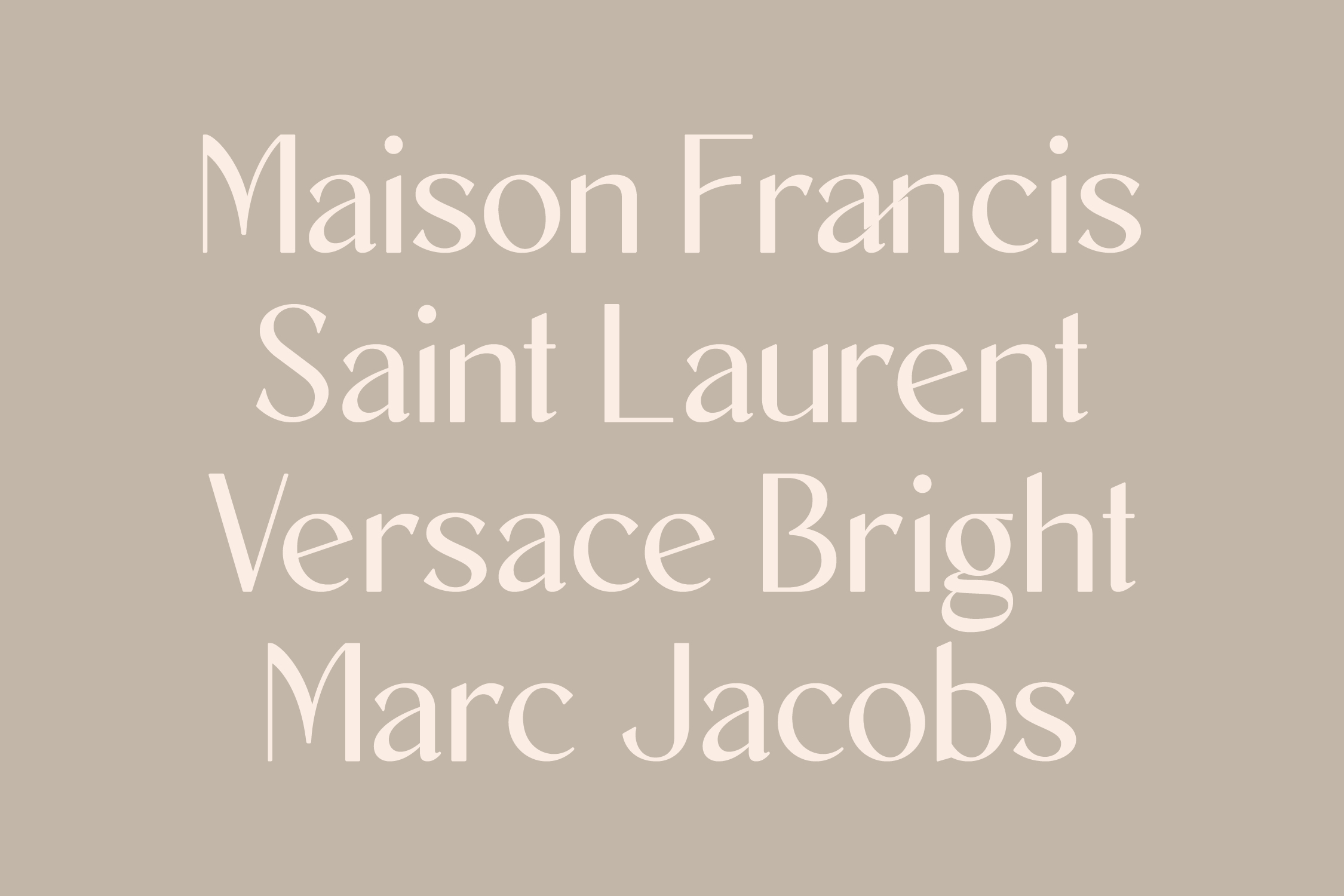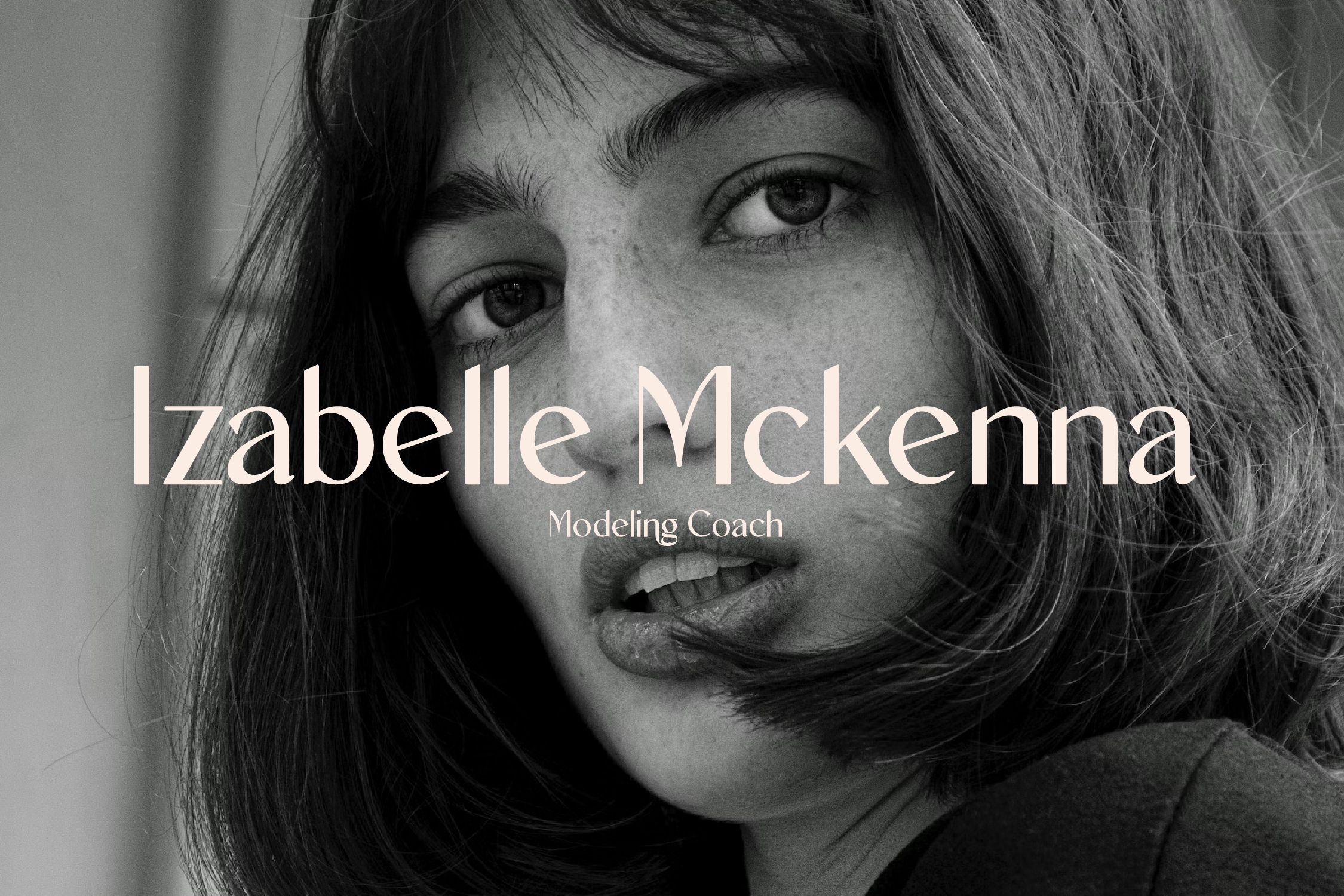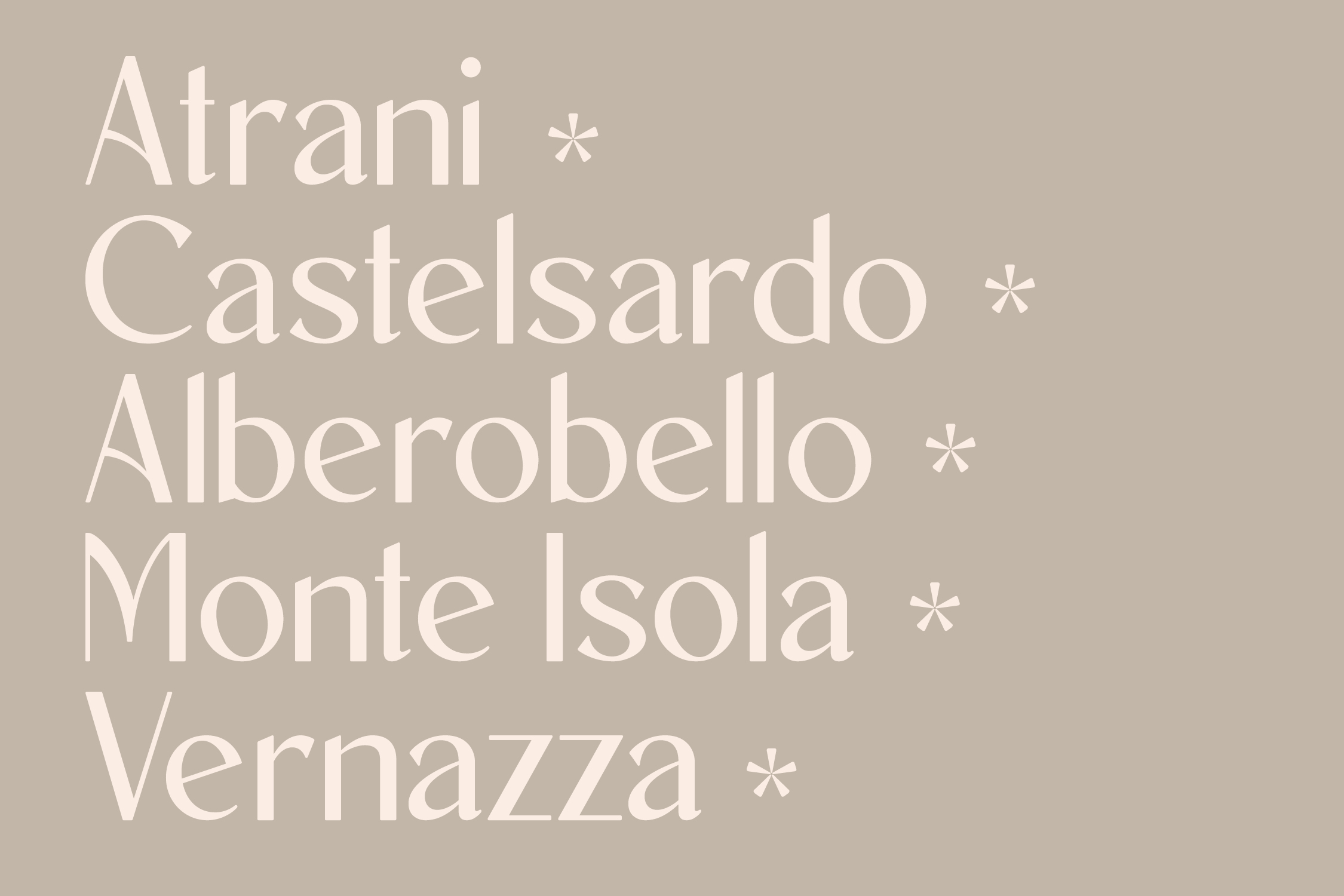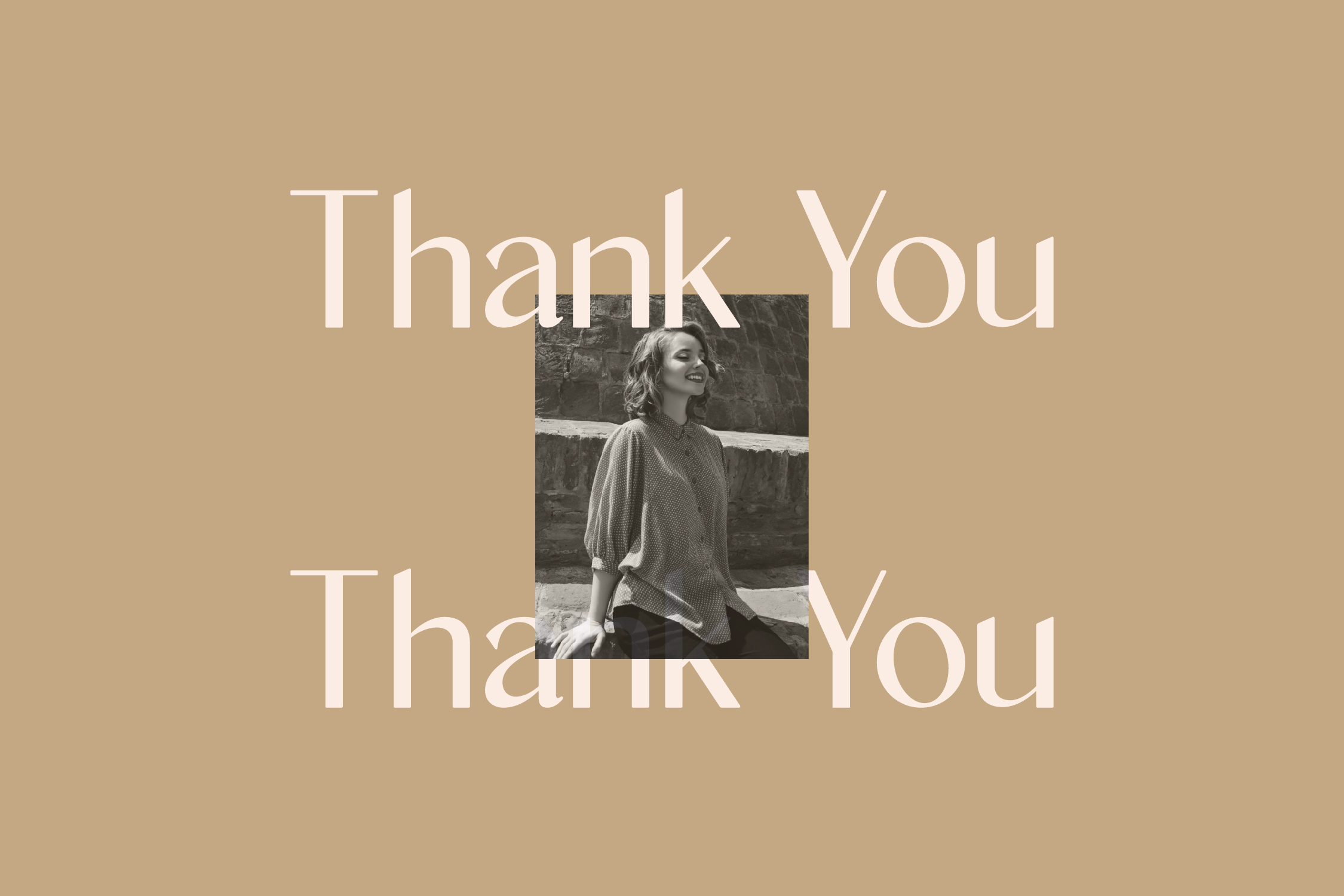
New Machiato Font
New Machiato Sans Serif Font
A sans serif modern and classic typeface that has own unique style & modern look. This typeface is perfect for an elegant & luxury logo, book or movie title design, fashion brand, magazine, clothes, lettering, quotes, and so much more.